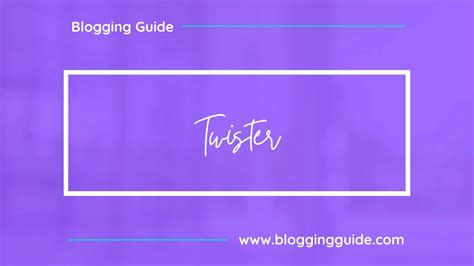
In the world of digital design and professional documentation, typography plays a pivotal role in conveying tone, elegance, and personality. While standard fonts like Calibri or Times New Roman serve functional purposes, there are times when you need your text to exude a sense of sophistication, warmth, or creative flair. Learning how to effectively use Cursive Fonts In Word can transform a mundane document into an eye-catching piece of art, whether you are crafting wedding invitations, personal letters, or specialized certificates.
Understanding Cursive Typography in Microsoft Word
Cursive fonts, often referred to as script fonts, mimic the flow of human handwriting. They are characterized by connected letters, fluid strokes, and a decorative aesthetic. Microsoft Word comes pre-installed with several basic script fonts, but many users find that the default library lacks the stylistic depth required for high-end design work. Fortunately, Word allows you to leverage any font installed on your Windows or macOS system, giving you access to thousands of beautiful, artistic typefaces.
When selecting Cursive Fonts In Word, consider the following categories:
- Formal Scripts: These are highly structured, elegant, and often resemble copperplate calligraphy. Perfect for formal invitations.
- Casual Scripts: These look like relaxed, modern handwriting. Great for blog headers, social media graphics, or informal notes.
- Decorative/Display Scripts: These feature unique flourishes and bold shapes. Best used sparingly for emphasis or titles.
How to Access and Apply Cursive Fonts
Integrating unique handwriting styles into your documents is a straightforward process. Once you have identified the specific font you want to use, you can apply it to your text using the standard formatting toolbar. To change your font, highlight the text you wish to format, navigate to the Home tab, and select the desired style from the dropdown menu in the "Font" group.
Comparing Popular Script Options
Choosing the right font can be overwhelming given the vast selection available. To help you narrow down your search, the following table summarizes some common, highly readable cursive styles that are widely compatible with Microsoft Word.
| Font Name | Style Category | Best Use Case |
|---|---|---|
| Lucida Handwriting | Casual | Personal notes, journaling |
| Edwardian Script | Formal | Wedding invitations, certificates |
| Brush Script MT | Casual/Bold | Headers, posters, invitations |
| French Script MT | Formal | Elegant letterheads, formal announcements |
Tips for Maintaining Readability
While Cursive Fonts In Word are undeniably beautiful, they can quickly become illegible if misused. Because script fonts often feature thin lines and complex ligatures, readability should be your primary concern. A document filled entirely with elaborate cursive text can cause eye strain and frustrate the reader. Follow these best practices to ensure your designs remain effective:
- Use for Headings Only: Reserve cursive fonts for titles or section headers rather than long paragraphs of body text.
- Adjust Font Size: Script fonts often appear smaller or more cramped than standard serif fonts. You may need to increase the point size to ensure the text remains clear.
- Mind the Contrast: Ensure the background color provides strong contrast with the text color. Avoid using cursive on cluttered backgrounds.
- Avoid All Caps: Script fonts are designed to flow based on lowercase letter connectivity. Using all caps often breaks the visual flow and makes the text difficult to parse.
⚠️ Note: Keep your line spacing in mind. Since cursive letters have varying heights and descenders (the parts of letters that hang below the line), increasing your line spacing (Leading) can prevent text lines from overlapping and looking cluttered.
Advanced Customization Techniques
Beyond simply changing the font, you can further customize your cursive text using Word’s advanced text effects. Highlight your text, go to the Home tab, and look for the "Text Effects and Typography" icon (the blue 'A'). From here, you can add soft shadows, reflections, or glows. These effects can add a professional polish to your titles when using Cursive Fonts In Word.
Additionally, consider utilizing the "Character Spacing" settings. If a specific cursive font feels too tight, navigate to the Font dialog box, select the Advanced tab, and adjust the Spacing to "Expanded." This minor adjustment can make a dense script font look much more airy and professional, significantly improving the aesthetic quality of your document.